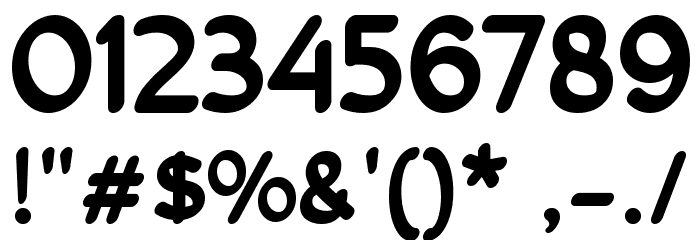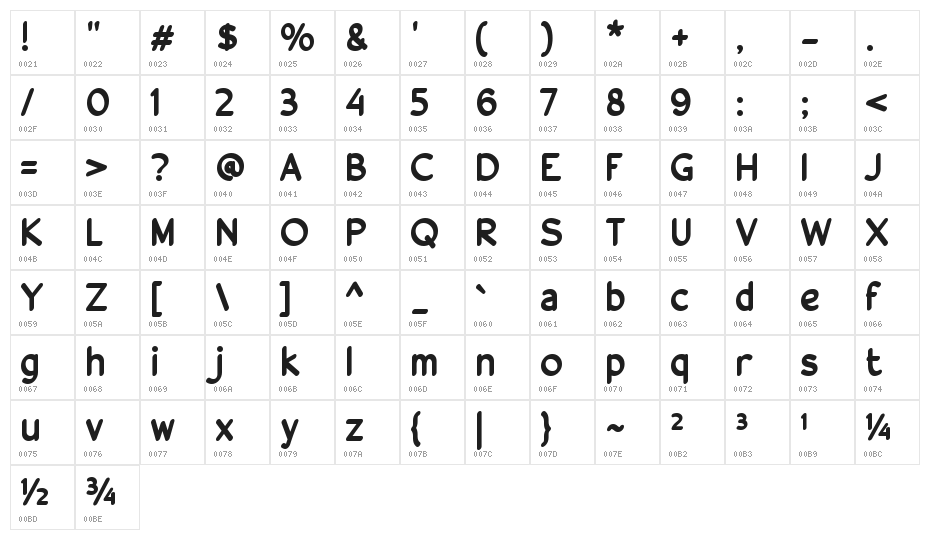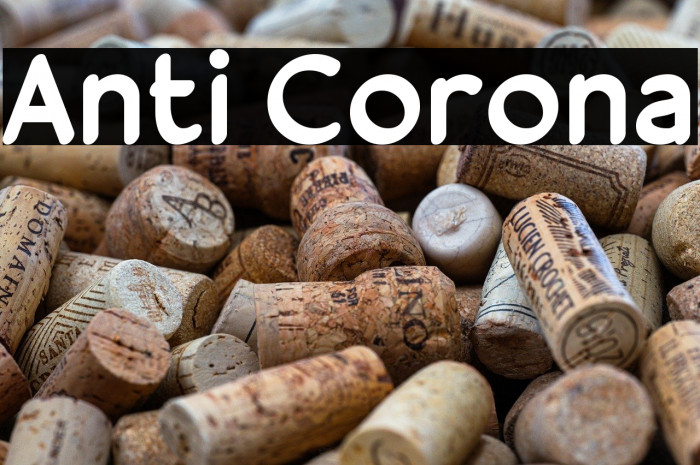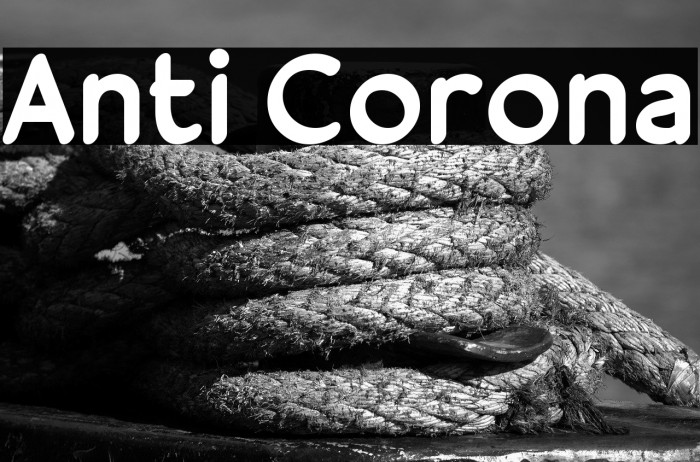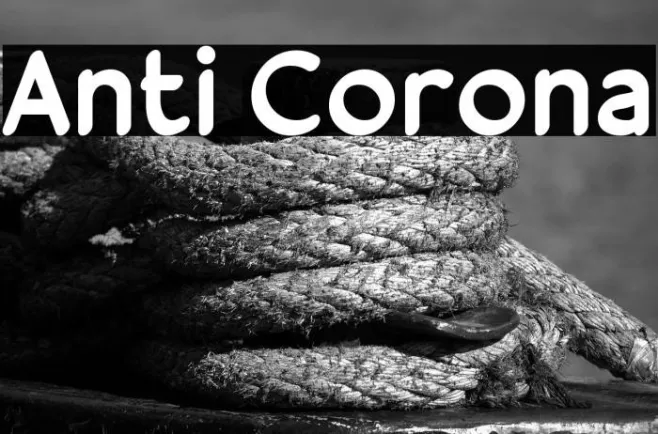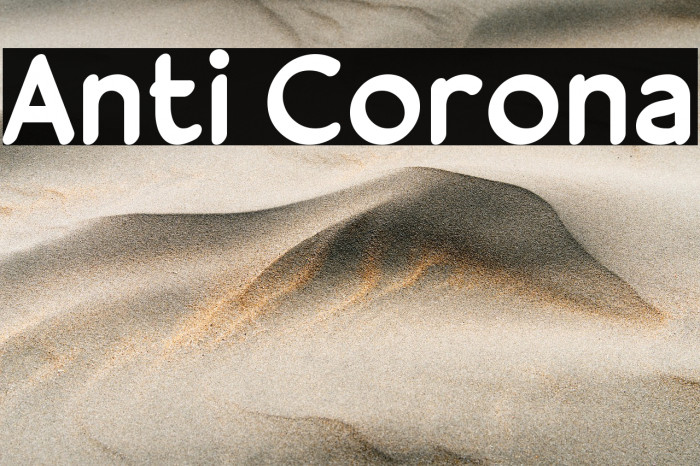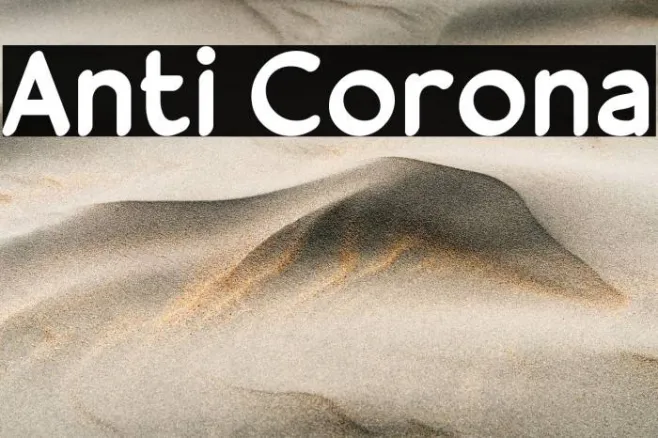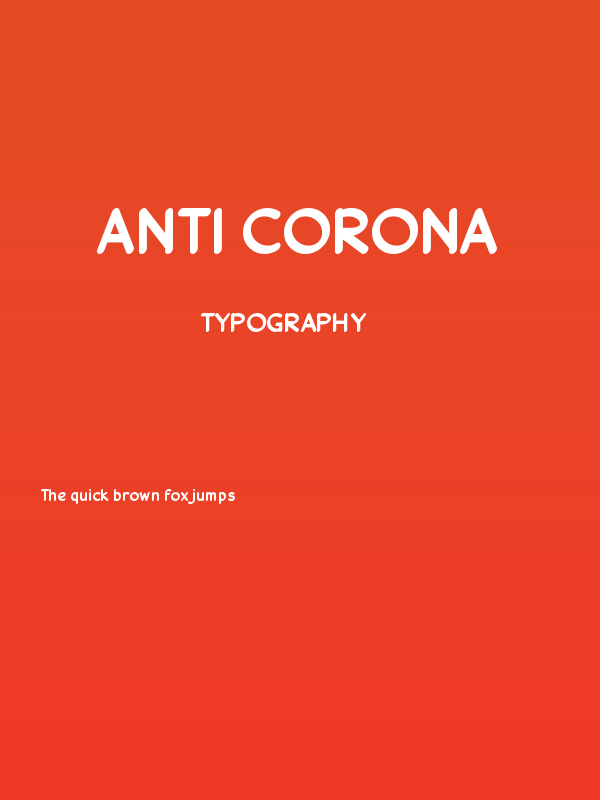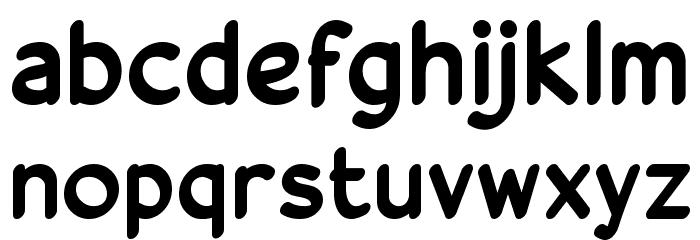
Anti Corona Font
This font features a bold and rounded style, providing a friendly and approachable appearance. The characters are evenly spaced with a consistent stroke width, contributing to a clean and modern look. The rounded edges soften the overall aesthetic, making it suitable for a variety of applications where a welcoming tone is desired. The numerals and special characters maintain the same rounded characteristics, ensuring uniformity across all elements. This font is versatile and can be used in both digital and print media.
| Use Case | Headlines, Logos, User Interfaces |
| Proposed Projects | Ideal for branding, children's books, educational materials, and user-friendly interfaces. |